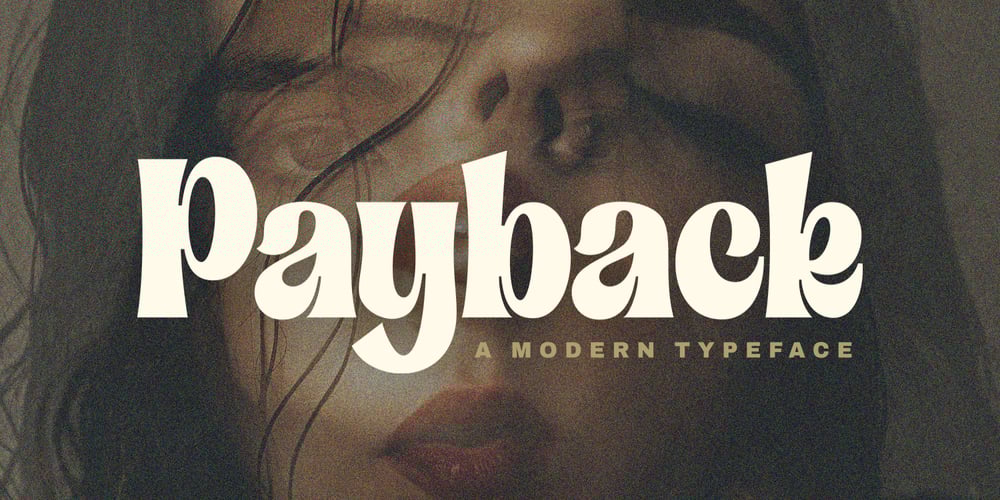
Payback
Payback font
Payback Font Family was designed by Rangga Subekti and published by Subectype. Payback contains 1 styles and family package options. Introducing “Payback” Modern Serif font, that has own unique style & casual look. This font is perfect for an elegant & luxury logo,branding, title project, fashion brand, magazine, clothes, lettering, quotes, and so much more.Thank You.Subectype